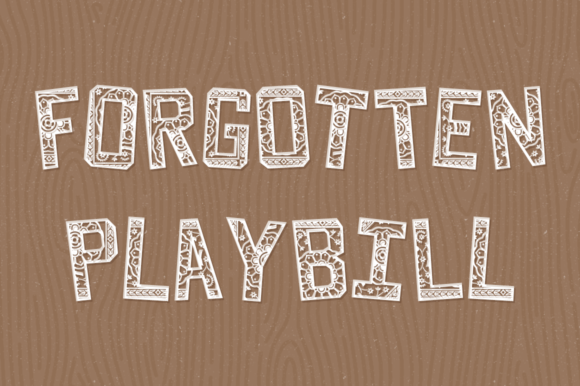
Forgotten Playbill Font
Introducing Forgotten Playbill Font, a captivating journey through time and imagination, where vintage charm meets modern artistry.
Unleash the allure of forgotten eras with each stroke of this exquisite decorative font, a testament to the timeless beauty hidden within antique treasures. Inspired by the intricate lettering of a vintage playbill, this font captures the essence of bygone days, promising to inject a touch of nostalgic elegance into your designs.
Forgotten Playbill Font is a symphony of opulence and detail, where each letter is adorned with an intricate floral pattern, framed by bold outlines. The subtle rotation of uppercase and lowercase characters adds a captivating dynamic, inviting you to dance between vintage grandeur and contemporary flair.
Let your imagination soar as you explore the possibilities of Forgotten Playbill Font. Its versatility knows no bounds, lending itself seamlessly to a myriad of creative endeavors. From enchanting invitations and charming branding to captivating social media posts and artistic masterpieces, this font will elevate your projects to new heights of sophistication and charm.
Immerse yourself in a world where forgotten memories intertwine with modern marvels. Embrace Forgotten Playbill Font and let it ignite your imagination, carrying you through a transformative journey where timeless elegance meets boundless creativity.